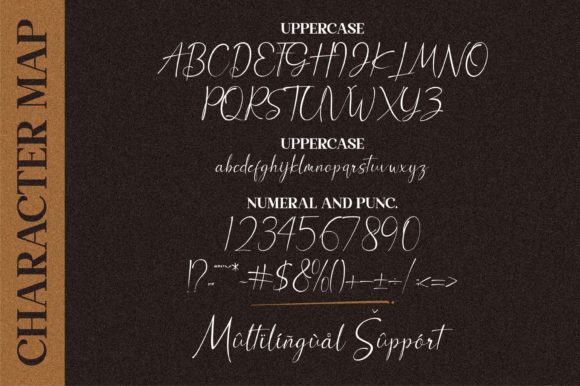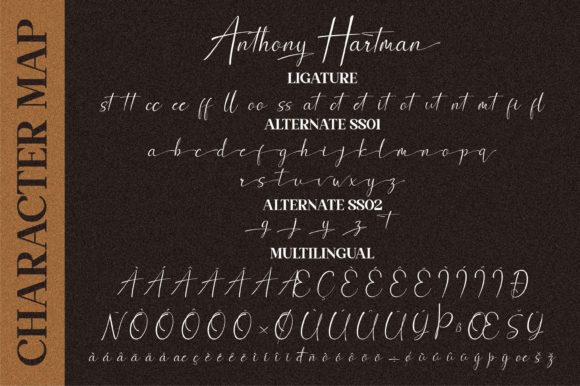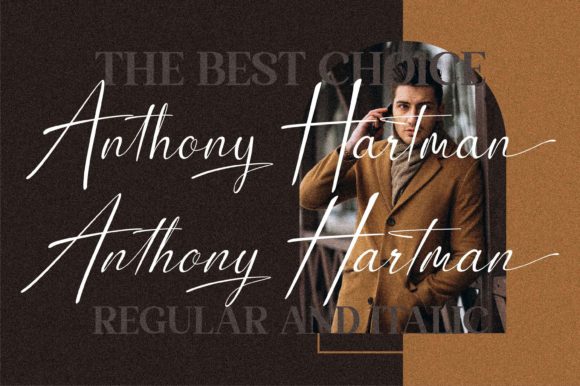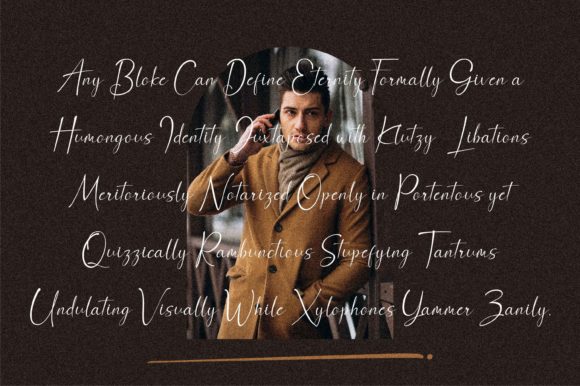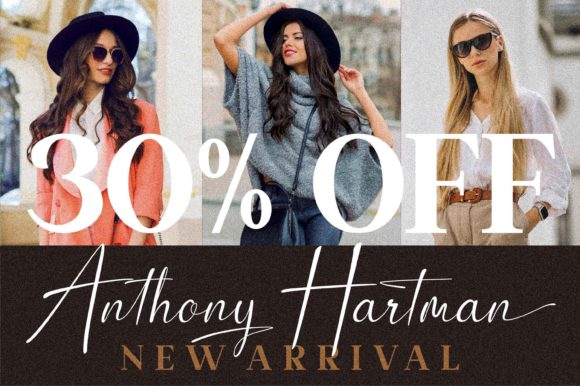
The Elusive Font: A Designer’s Journey with Anthony Hartman
Ah, the quest for the perfect font. We’ve all been there – stuck in the midst of a design project, scrolling through font libraries, and yet, nothing seems quite right. I recall a particularly frustrating experience while working on a wedding invitation design. My client wanted a font that exuded elegance, sophistication, and a touch of modern whimsy. After hours of searching, I stumbled upon Anthony Hartman Font, and it was love at first sight! 💕
Anthony Hartman Font: A Beautiful, Refined Script
Anthony Hartman Font is a stunning script font that embodies a classy, elegant, and modern aesthetic. Its versatility makes it an excellent choice for various design projects, including logos, branding, invitations, stationery, wedding designs, social media posts, and more! With its PUA (Private Use Area) encoding, accessing glyphs and swashes is a breeze, allowing you to unleash your creativity.
- 💫 Elegant and refined design, perfect for high-end projects
- 🎨 Highly versatile, suitable for various design applications
- 📈 Modern and sophisticated look that will elevate your designs
While Anthony Hartman Font is an exceptional font, there are a few minor considerations to keep in mind:
- 🤔 Some users may find the font’s elegance and refinement too subtle for certain projects
- ⚠️ As with any script font, it may not be the best choice for body text or lengthy content
Anthony Hartman Font was crafted with inspiration from classic calligraphy and modern typography. Its designer aimed to create a font that would exude elegance, sophistication, and a touch of whimsy. With its refined aesthetic and versatile design, Anthony Hartman Font is sure to become a staple in any designer’s font library.
A: PUA (Private Use Area) encoding allows font users to access glyphs and swashes easily, making it simpler to create stunning designs.
Q: Is Anthony Hartman Font suitable for body text or lengthy content?
A: While Anthony Hartman Font is an exceptional font, it may not be the best choice for body text or lengthy content due to its script nature and elegance.